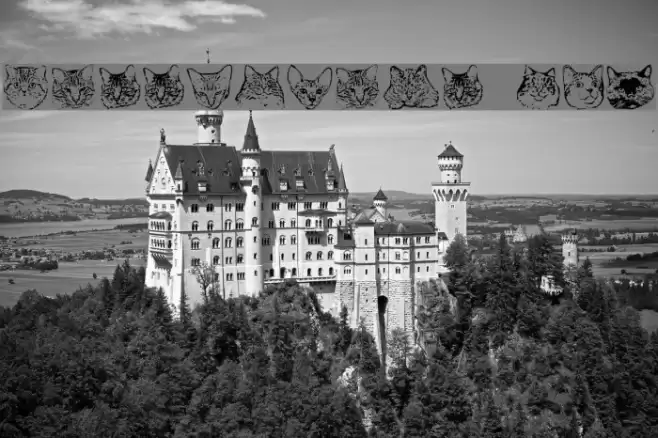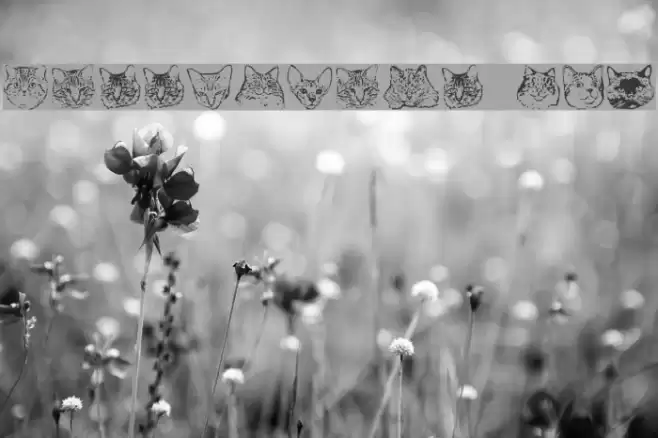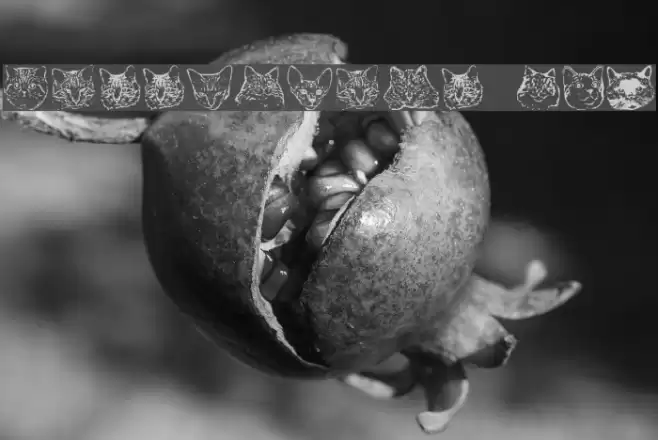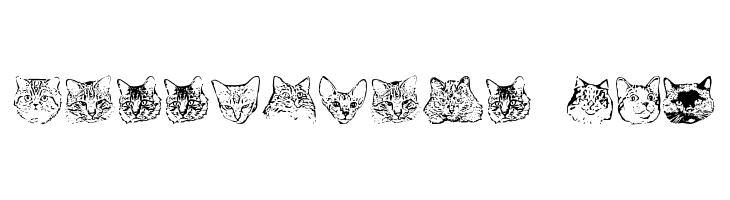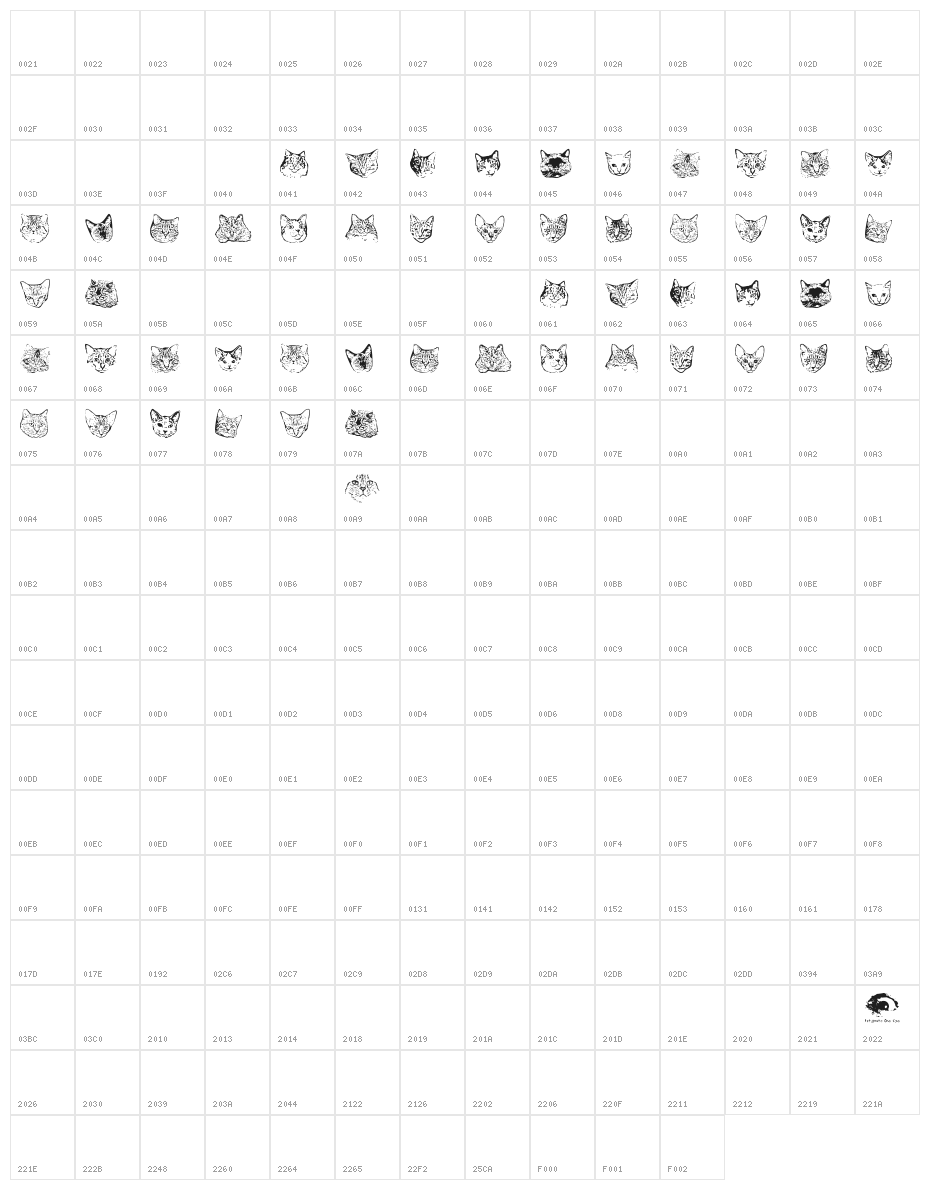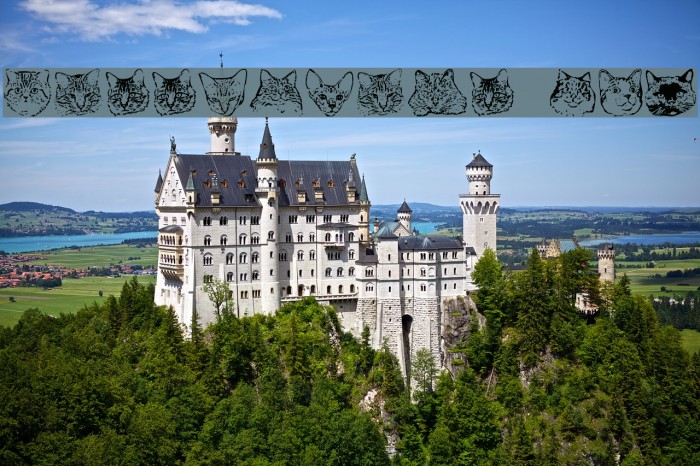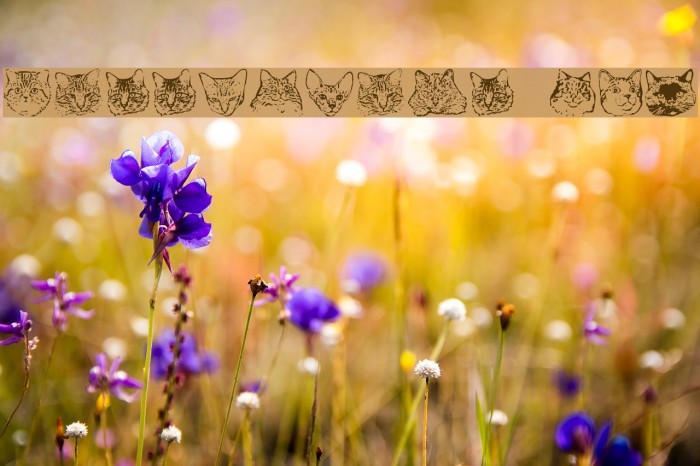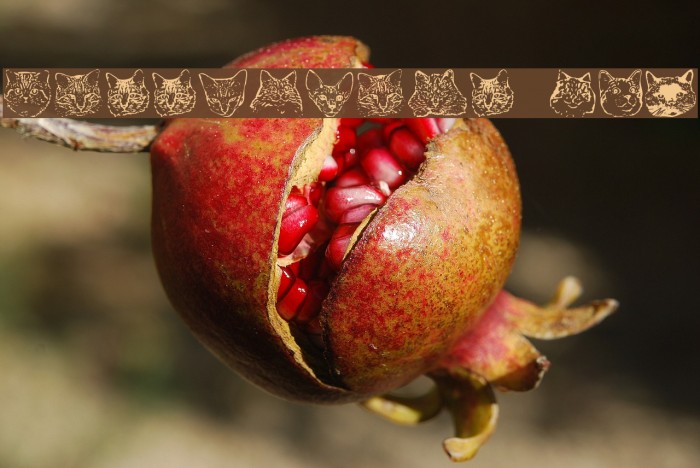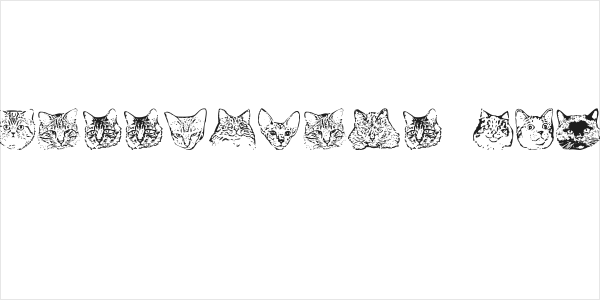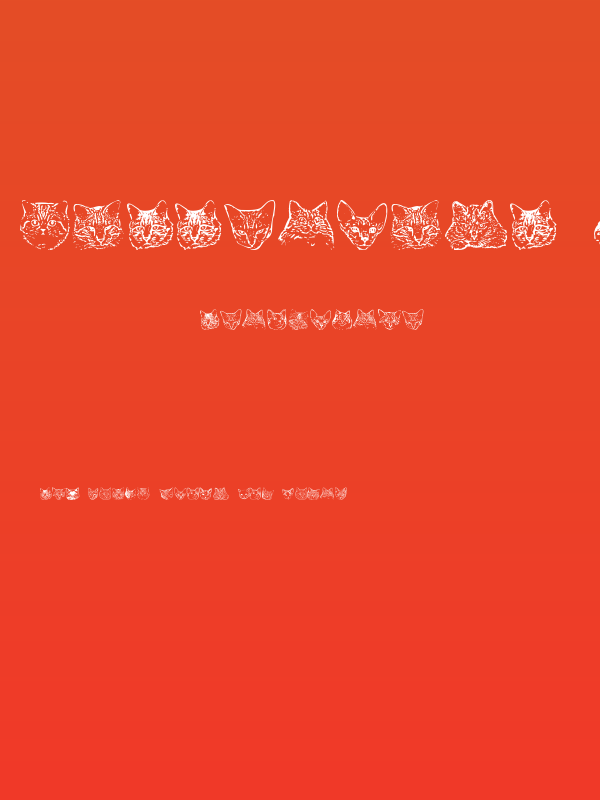
KittyPrint AOE Font
KittyPrint AOE Description
A decorative display set featuring detailed, hand-drawn cat faces for each character, with high-contrast black and white sketch lines and unique expressions for each glyph.
Hand-drawn cat face illustrations used as letterforms from Uncategorized fonts.
- Proposed Projects: Pet-themed invitations, children's books, playful branding, greeting cards, decorative borders.
- Overall Style: Decorative, Playful, Hand-drawn
- Use Case: Logos, Headlines, Decorative elements